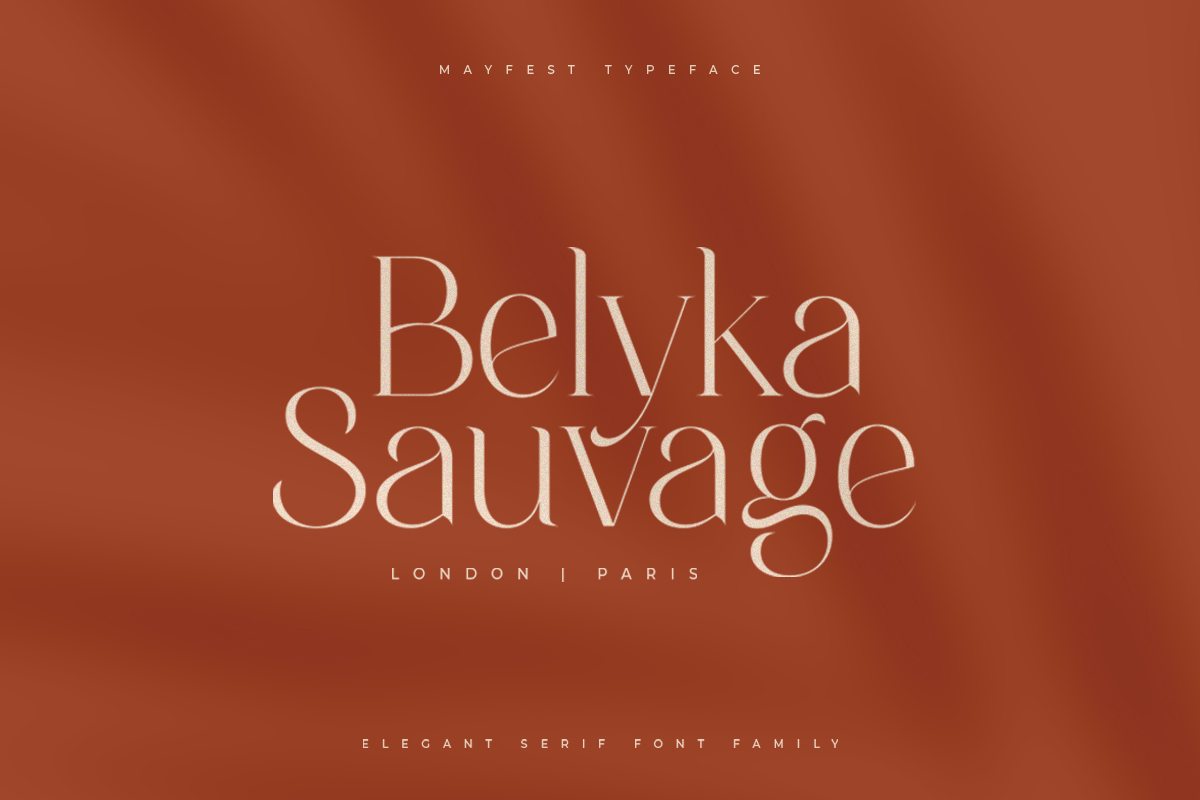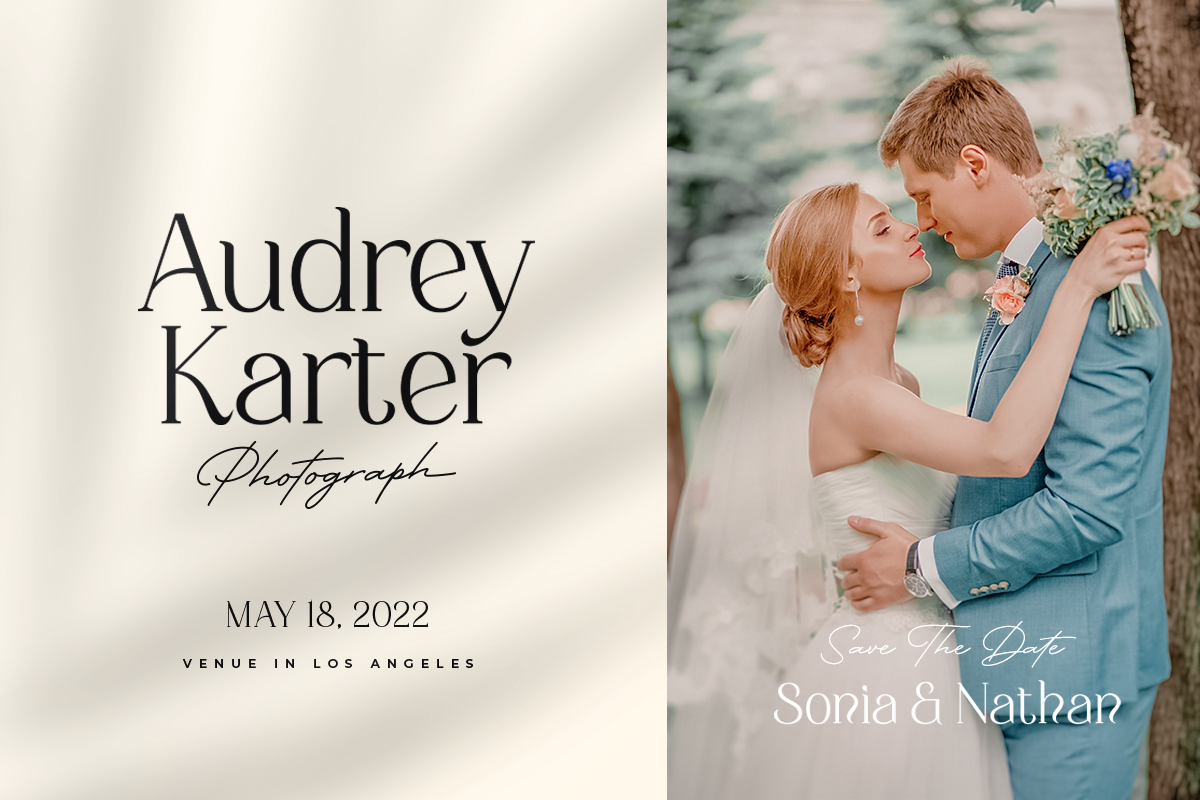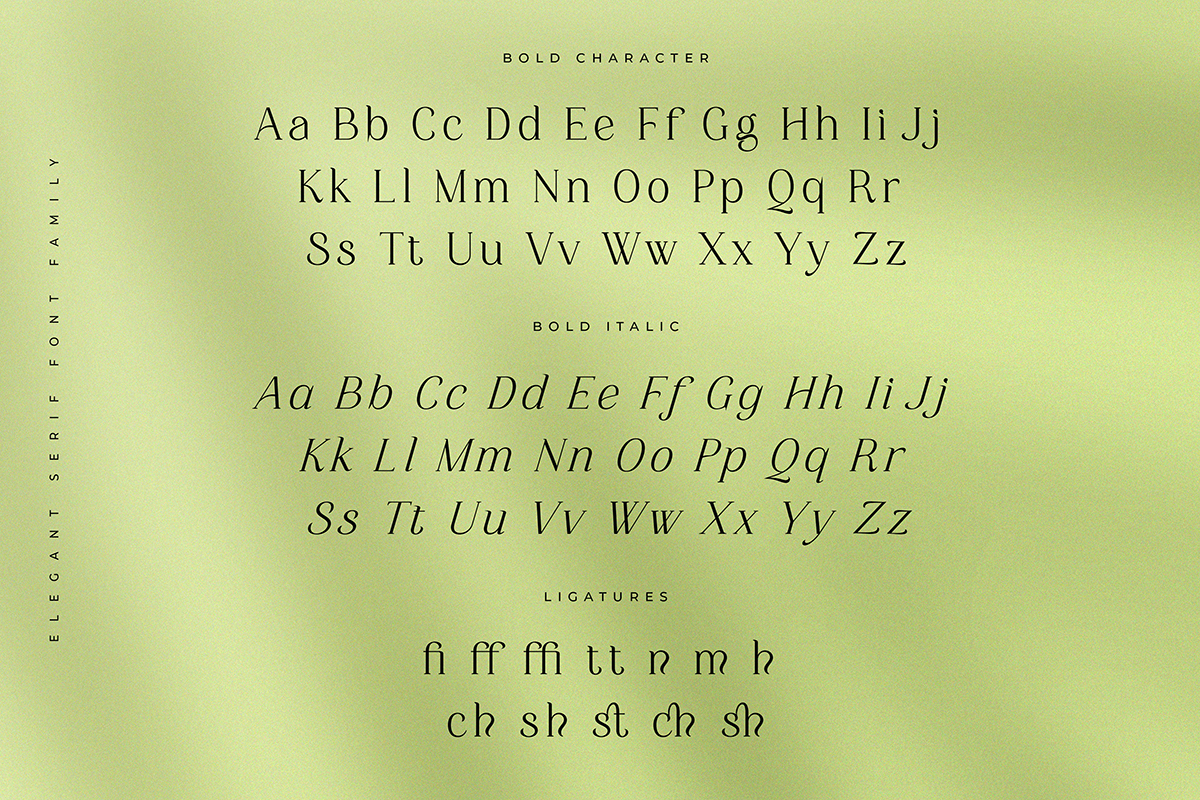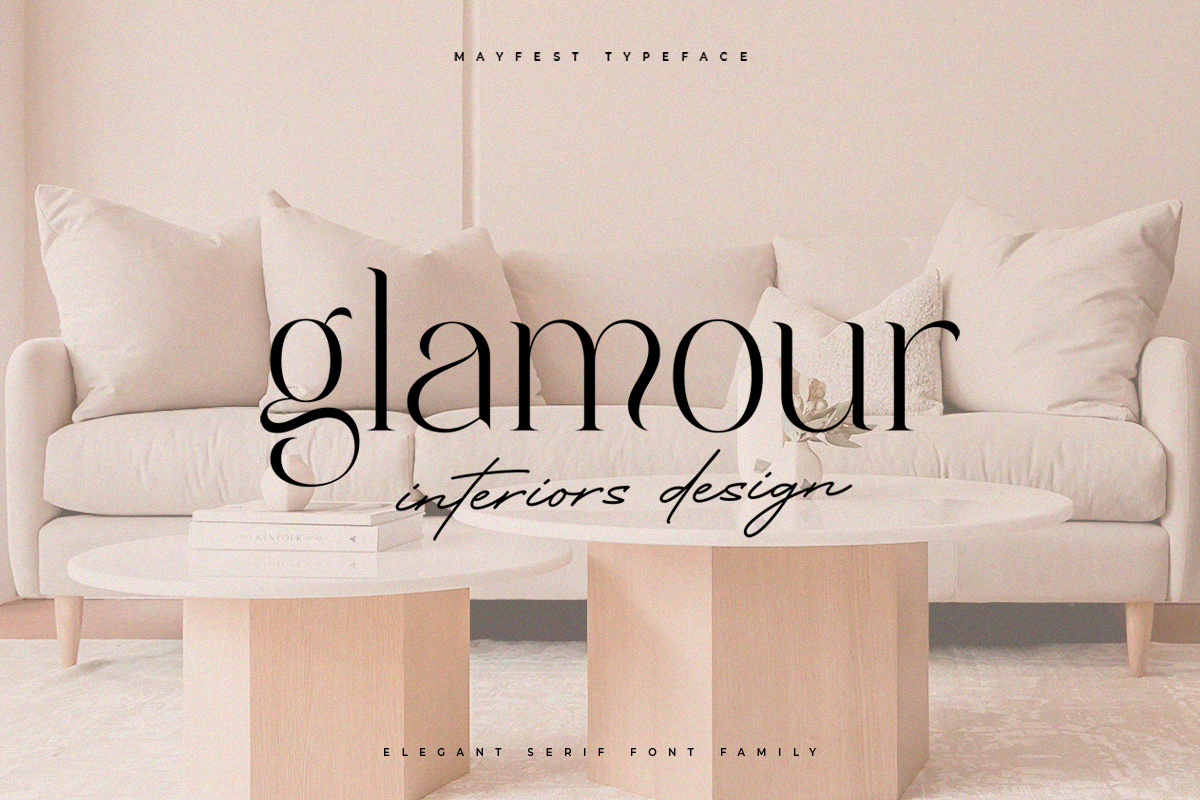
Mayfest Font
Mayfest Serif Font
It’s An Elegant Display serif Inspired By Luxury and Elegant Character. This font is perfect for branding projects, home-ware designs, product packaging, magazine headers – or simply as a stylish text overlay to any background image.